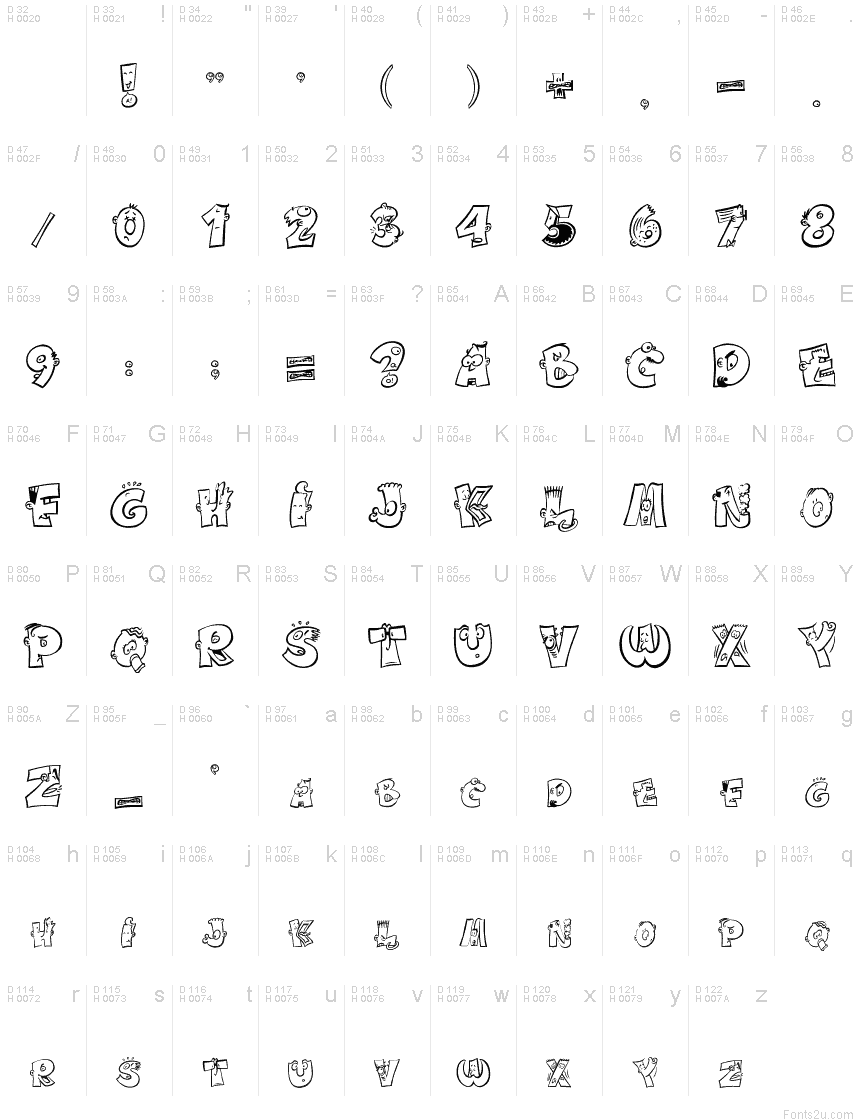
Caricature font by Patrick Sterno of Magix.L. sprl is a free cartoon display font that turns every letter into a goofy, wide-eyed character. The chunky outlines, squiggly curls, and expressive faces give text a hand-drawn, comic energy that feels spontaneous and fun rather than polished or stiff. Its playful irregularity keeps the eye moving, so even a single word can feel like a tiny illustrated scene.
Using Caricature, your titles and headlines instantly stand out for kids’ book covers, birthday invitations, comic strips, classroom posters, playful logos, YouTube thumbnails, and greeting cards. This free font works best at larger sizes where each character’s personality can breathe, and it pairs nicely with a simple sans serif for body text to keep layouts readable while letting the artwork-like letters steal the spotlight.